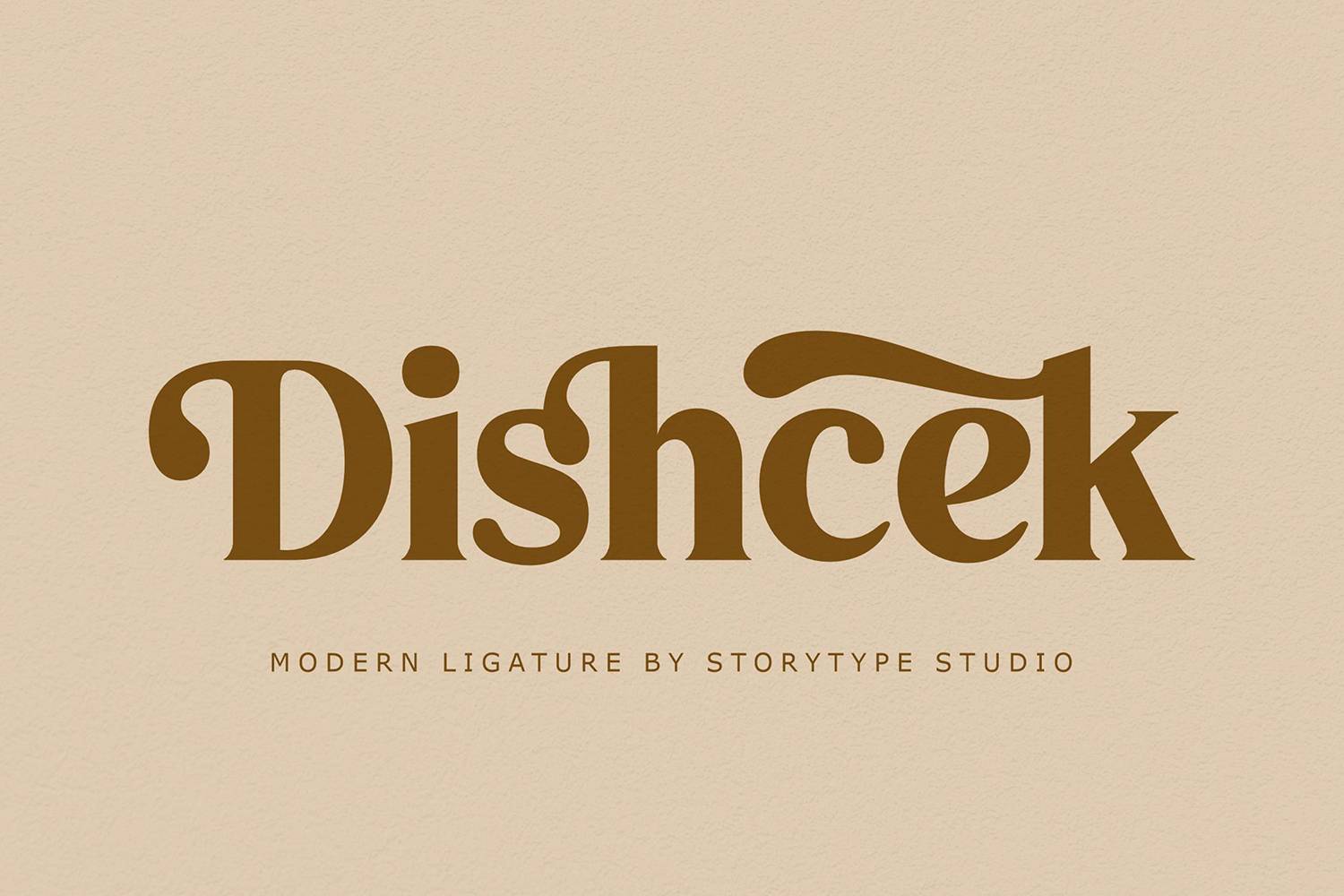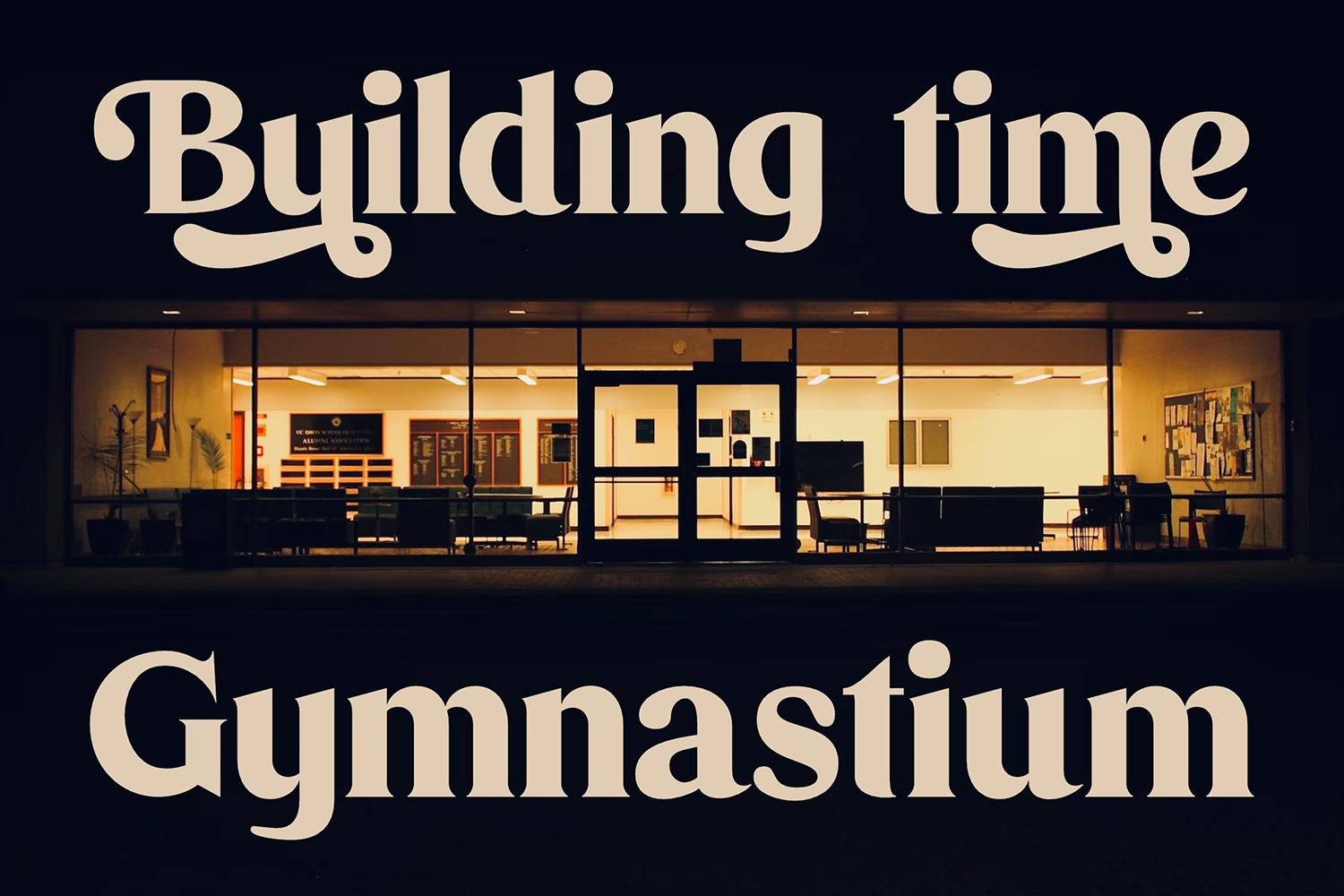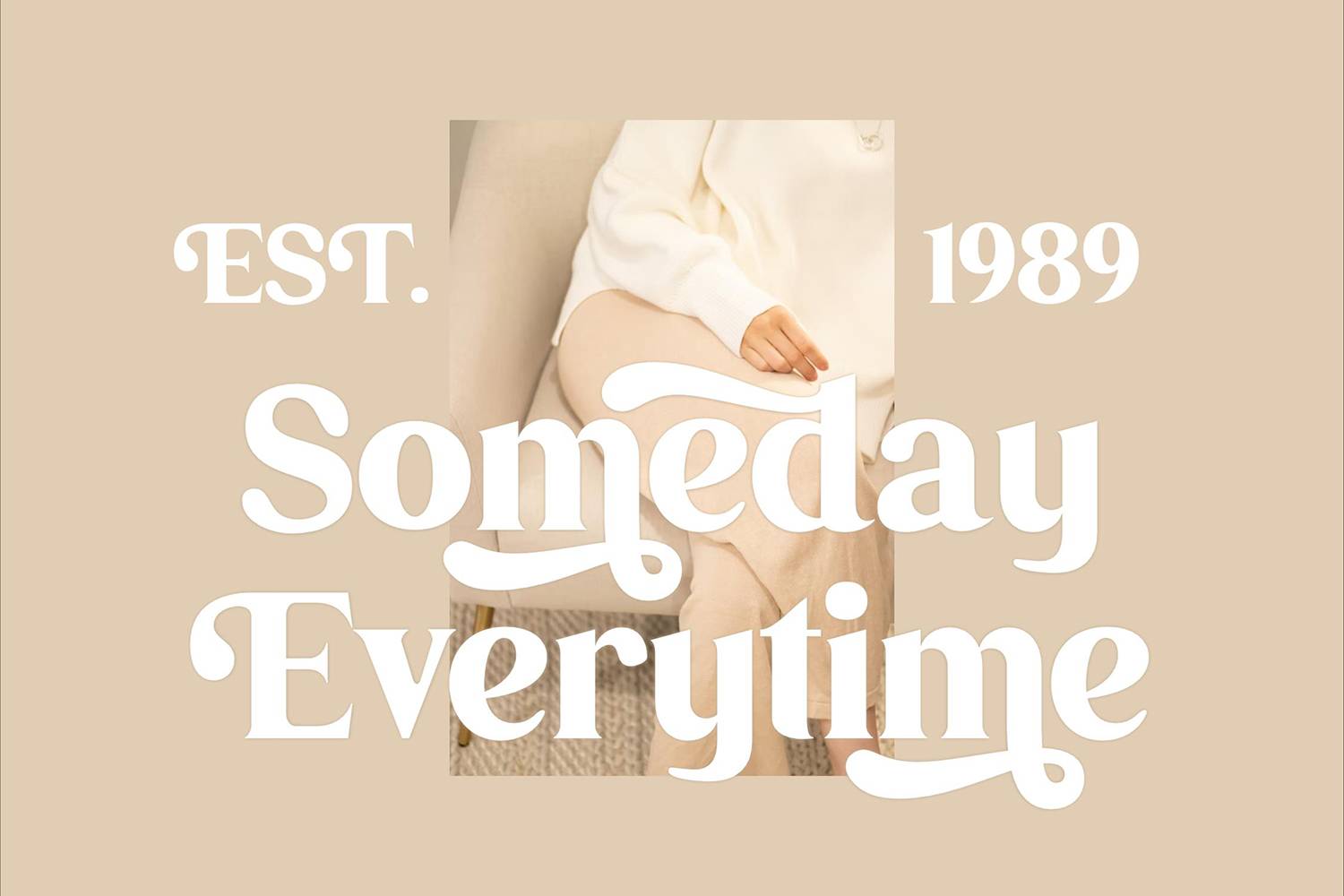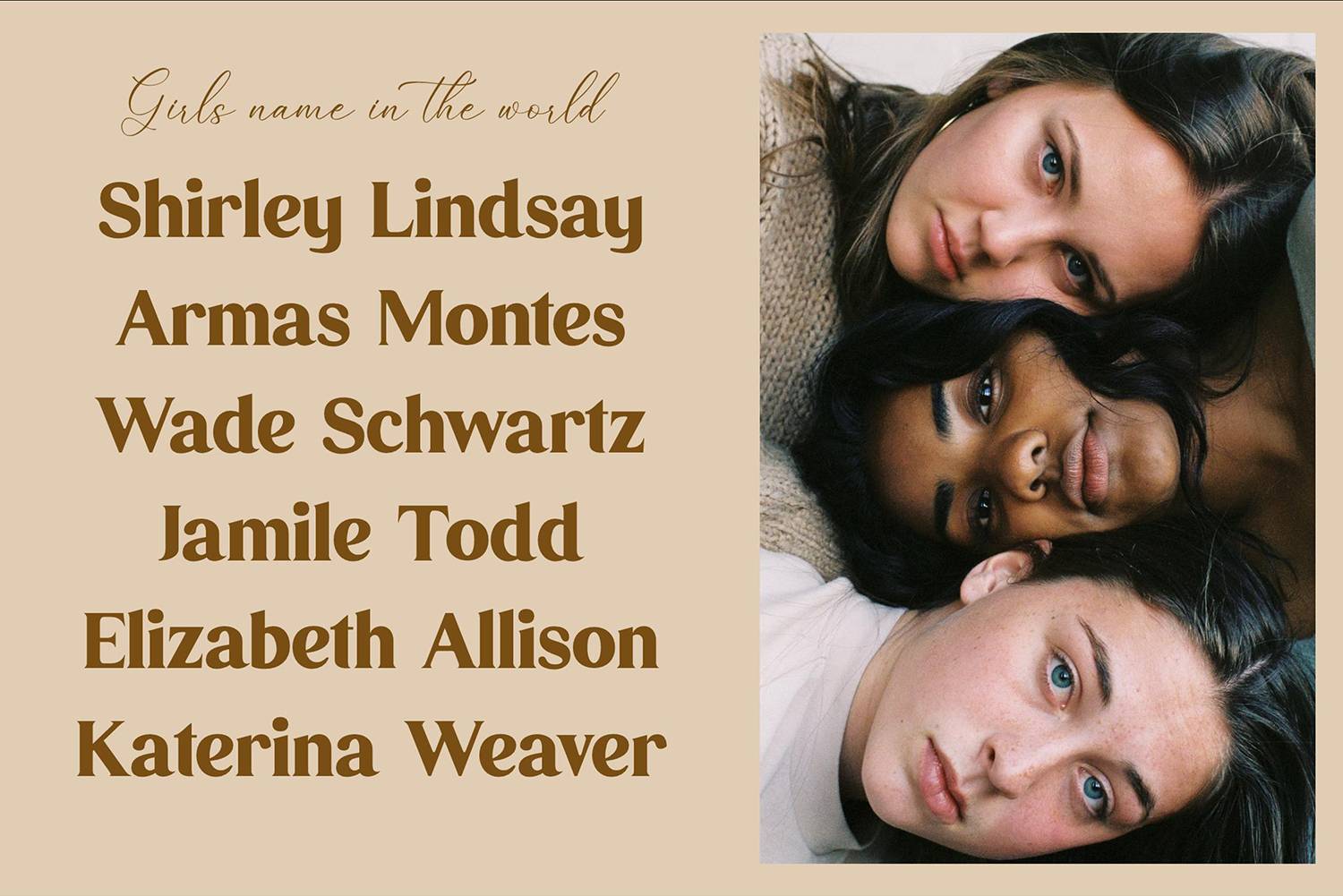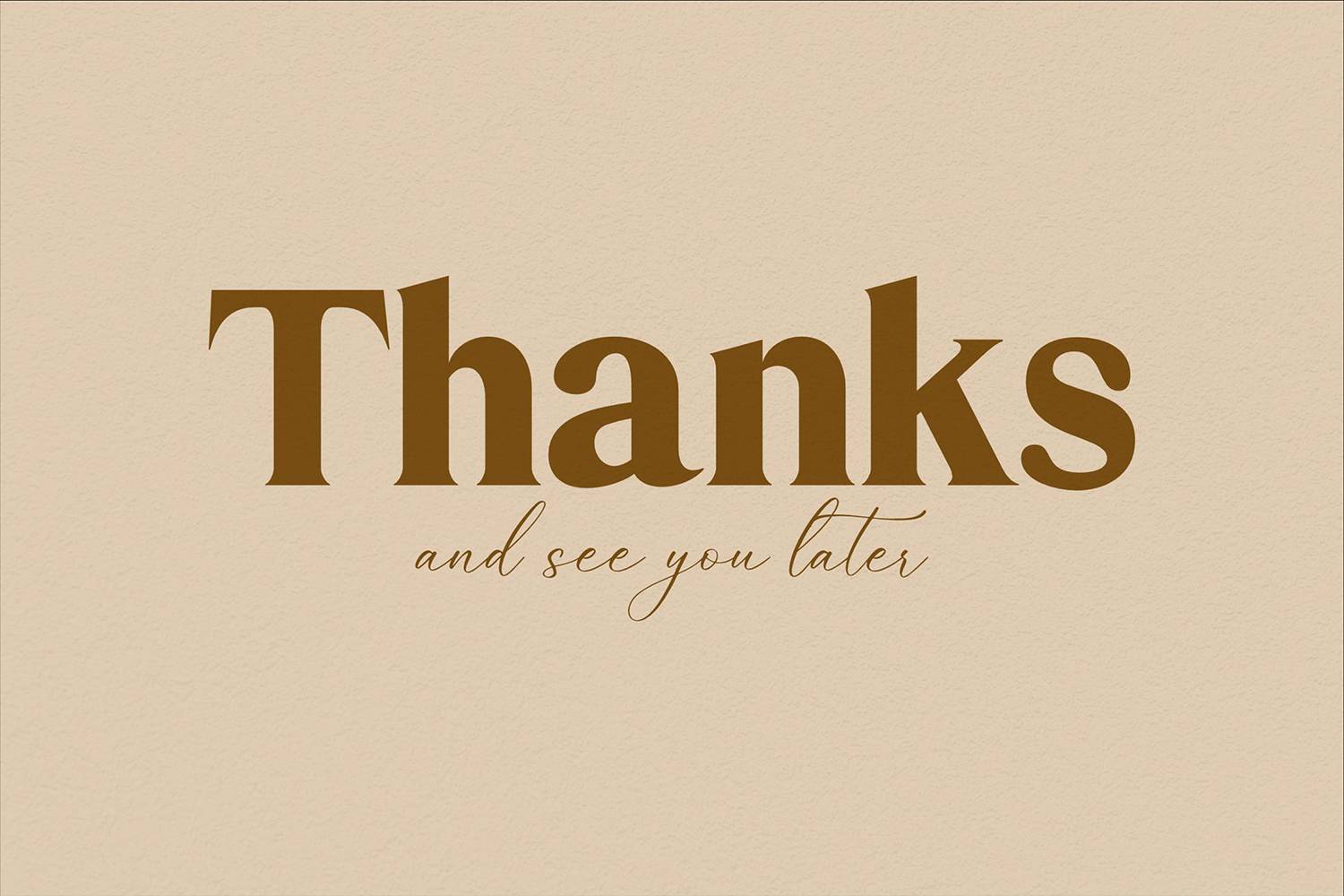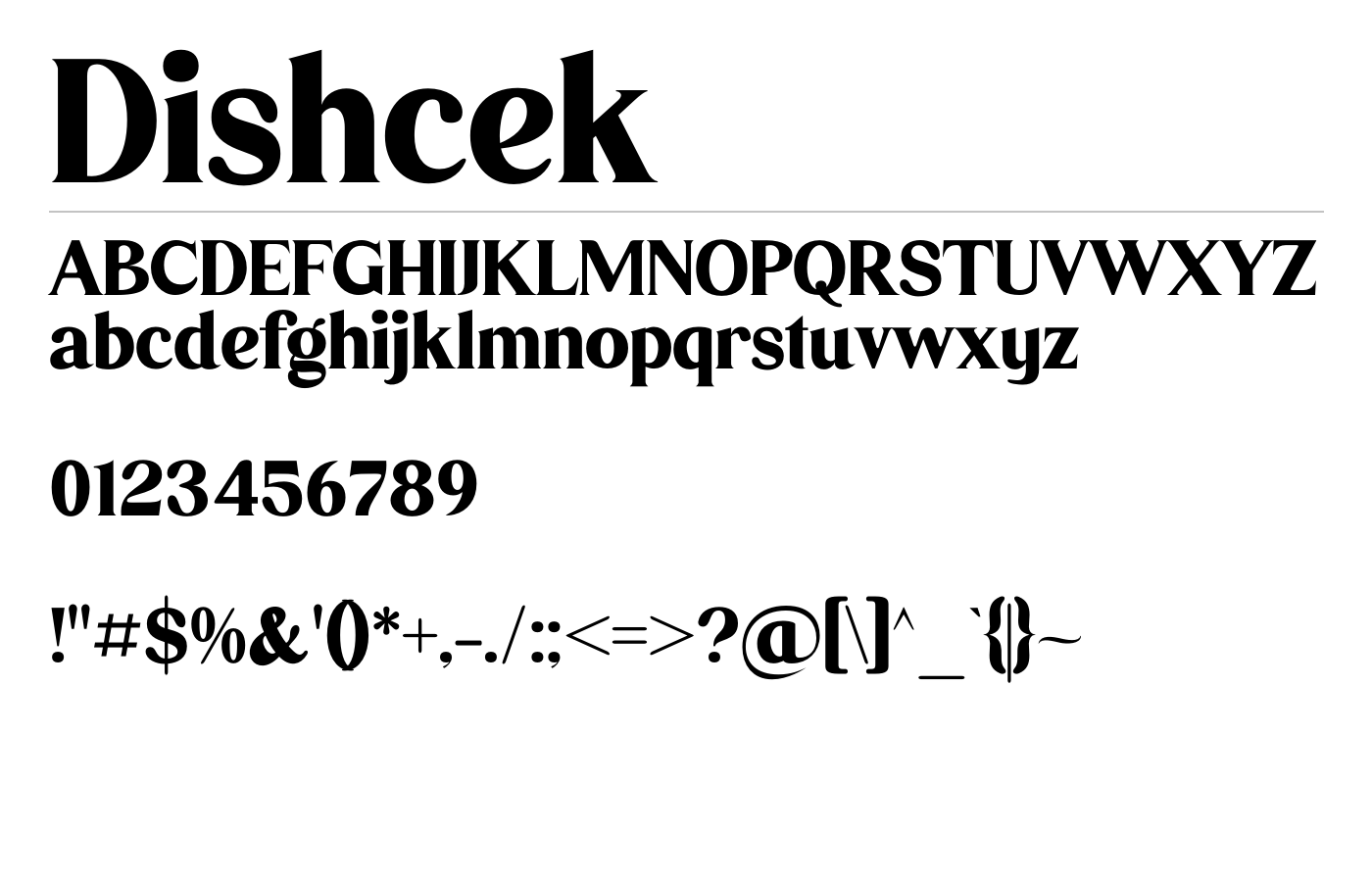
Dishcek is a bold serif typeface with a modern Didone influence, characterized by its strong contrast between thick and thin strokes and sharp, bracketed serifs. It features elegant letterforms with distinctive details like the curved tail on the lowercase "g" and a stylish, prominent ampersand, making it suitable for high-impact headlines and sophisticated branding. This font works well for editorial design, logos, and luxury packaging where a confident yet refined look is desired.
Dishcek Font
About Dishcek Font